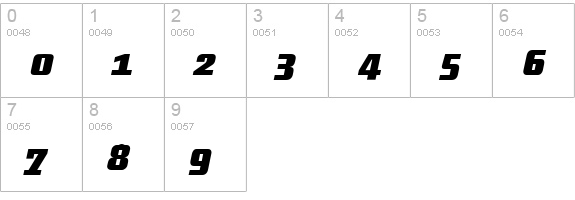
District-BoldItalicAlt Font Details
Introducing District-BoldItalicAlt font, a stylish and versatile typeface that exudes modernity and sophistication. This bold italic alternate version of the popular District font is perfect for adding a touch of elegance and uniqueness to your design projects. Its sleek and edgy design makes it ideal for a wide range of applications, from branding and advertising to editorial and web design. What sets District-BoldItalicAlt font apart is its distinctive personality and eye-catching appeal. The bold and italicized characters create a striking visual impact that instantly grabs attention and makes a statement. Whether you're looking to make a bold statement or add a touch of flair to your designs, this font is sure to impress. And the best part? District-BoldItalicAlt font is available for free download at FontsMarket.com. That's right, you can get your hands on this stunning font without having to spend a dime. So why wait? Elevate your designs with the unique charm of District-BoldItalicAlt font today!